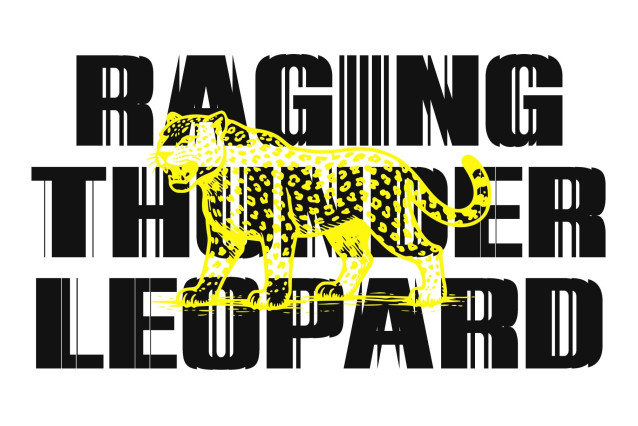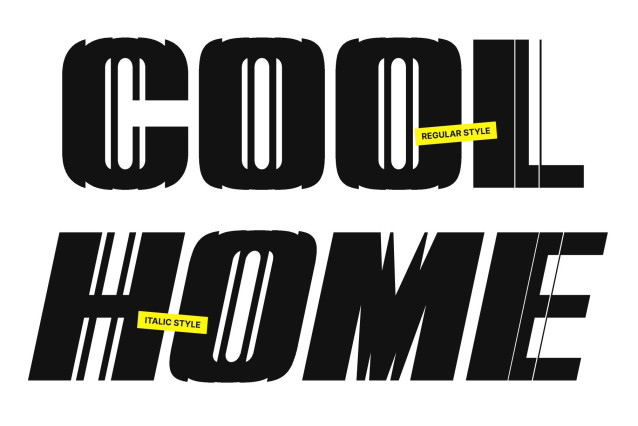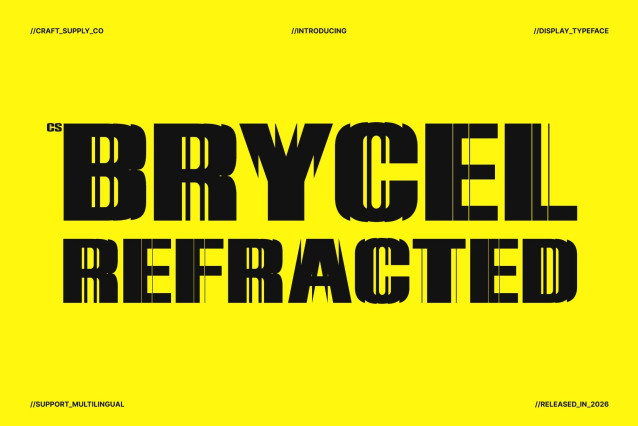
CS Brycel Refracted Font
CS Brycel Refracted – Bold Sans Serif Font: Where Glitch Distortion Meets Futuristic Power
Fragmented Geometric Forms with Experimental Energy
This is a bold sans serif font designed with striking refracted effects inspired by glitch like light distortions. Its characters appear fragmented, sliced, and geometrically cut, creating a futuristic and experimental visual identity. The bold structure enhances its commanding presence, making every composition feel powerful, dynamic, and highly attention grabbing.
Glitch-Inspired Style with Digital Futurism
This font delivers a typographic style filled with technological energy and cyber inspired aesthetics. The fractured details evoke digital interference, neon reflections, and futuristic motion, giving the font a sharp and innovative personality ideal for contemporary creative work.
Strong Display Presence with Modern Edge
This font combines clean geometric structure with expressive distortion effects. Its bold proportions maintain readability while preserving an edgy experimental atmosphere, making it ideal for high impact display applications and futuristic branding systems.